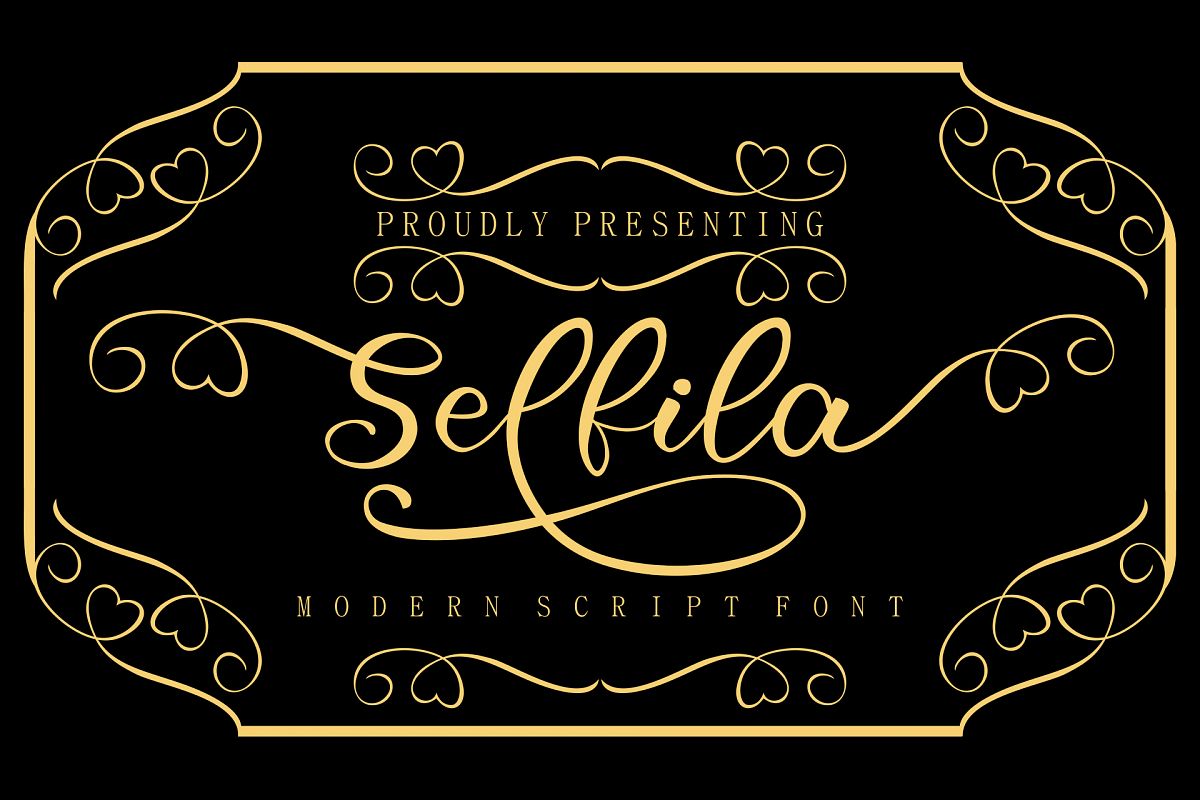
Selfila
Selfila is a beautiful and beautiful font script in terms of shape and writing. Selfila is perfect for commercial purposes such as t-shirt, logo, cover, company design and many more